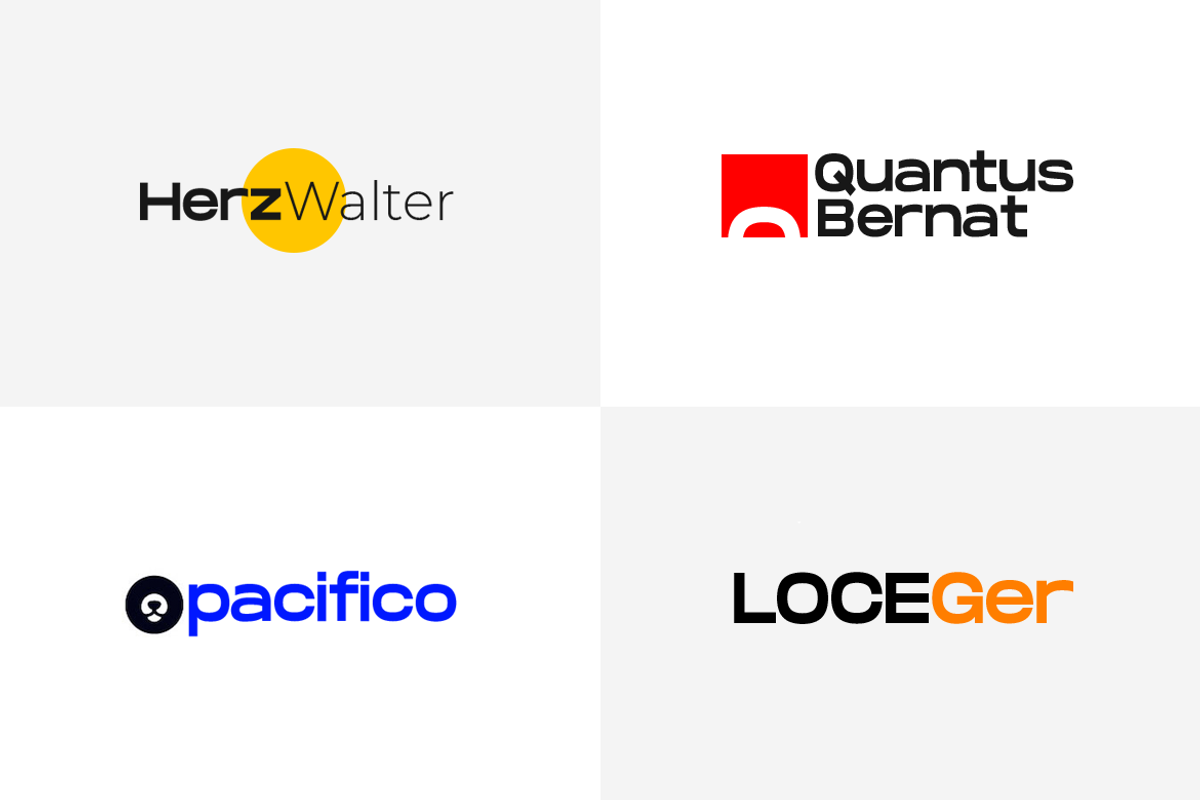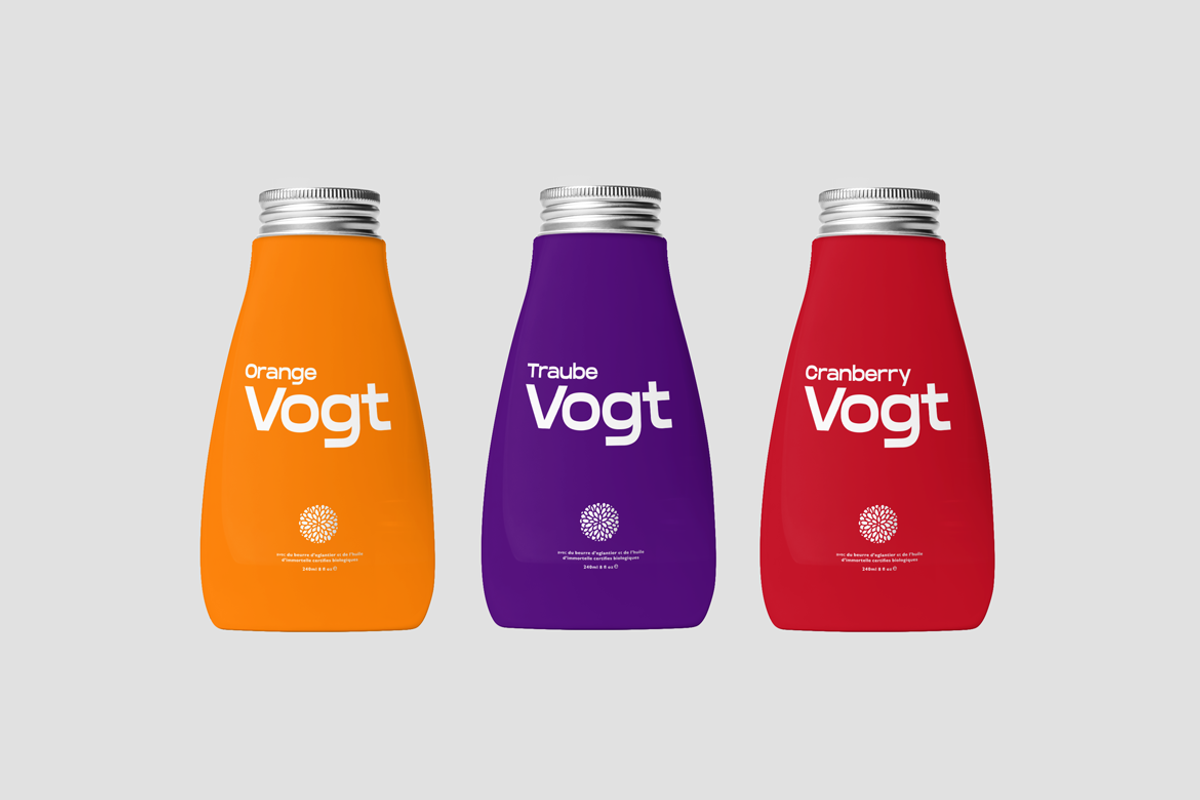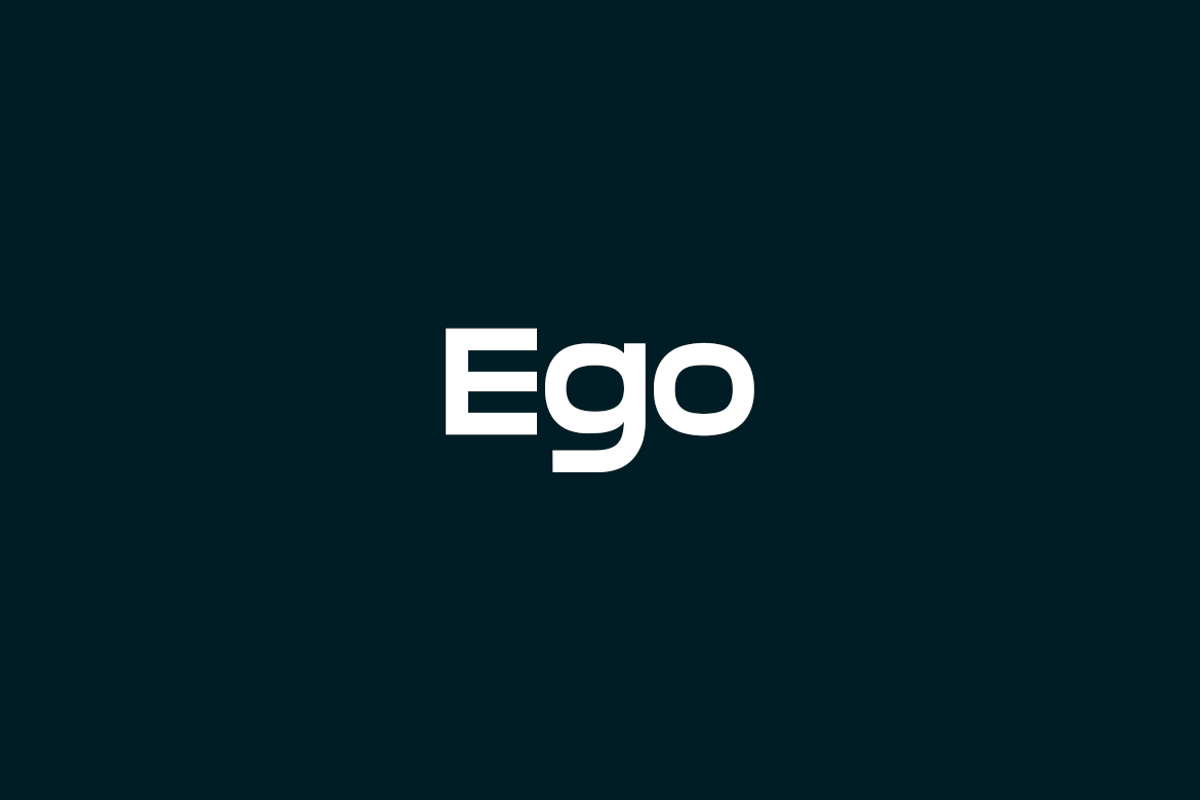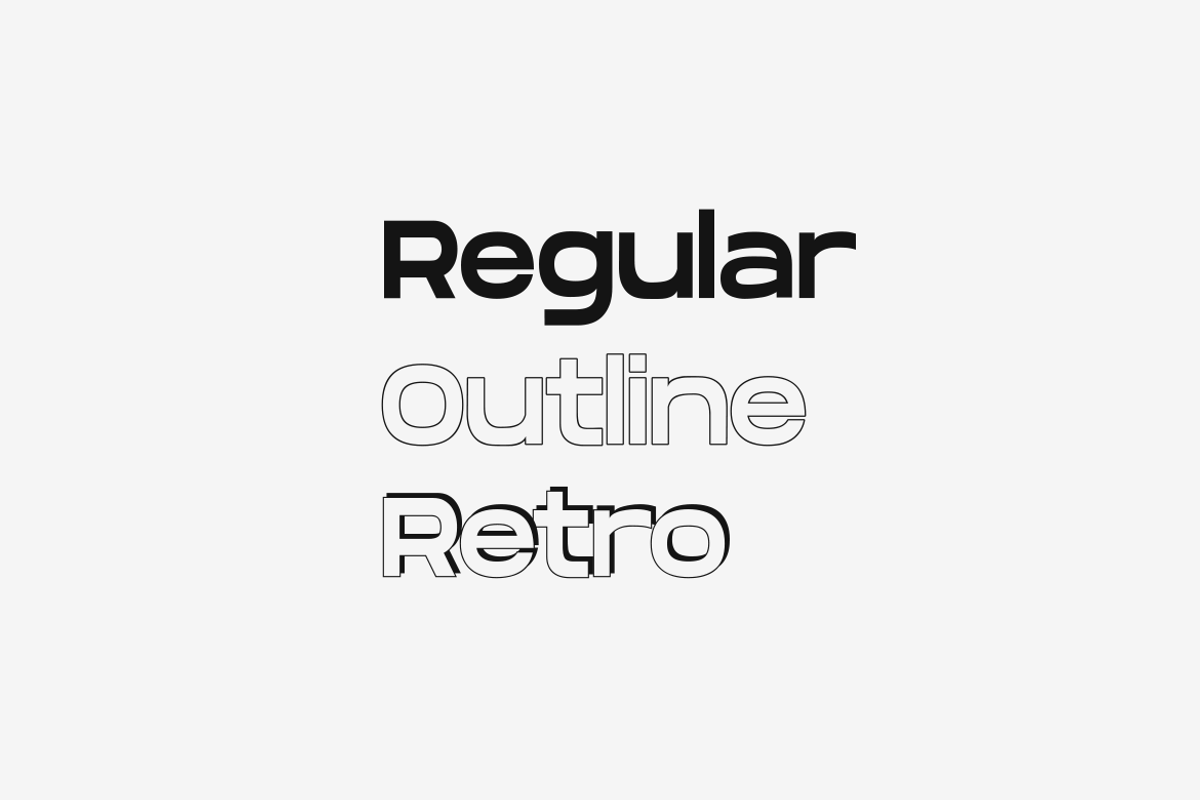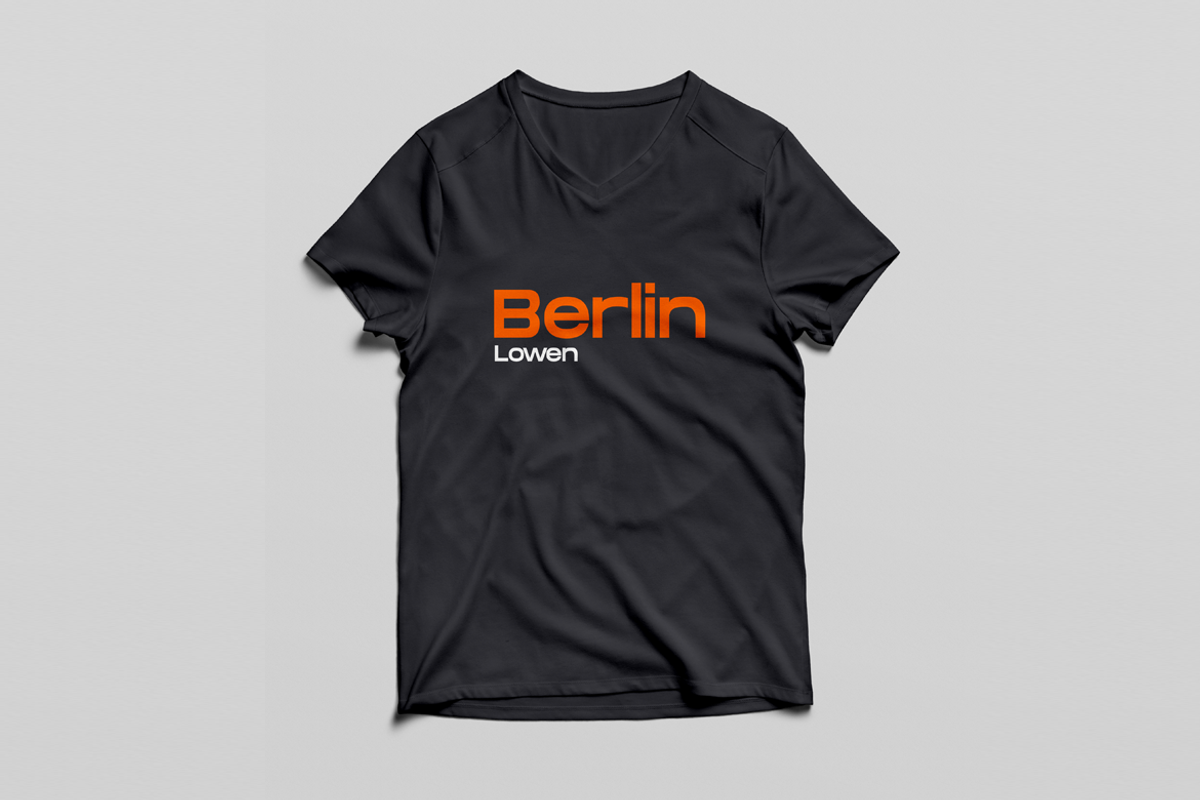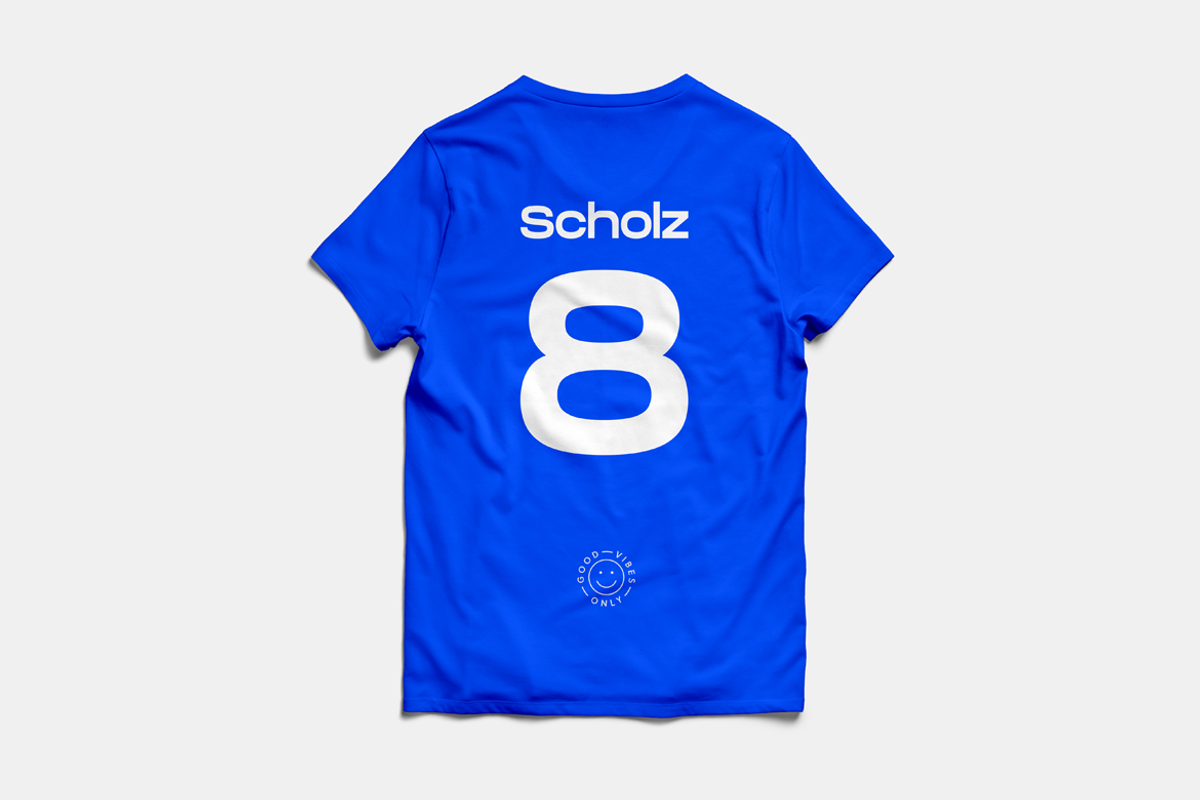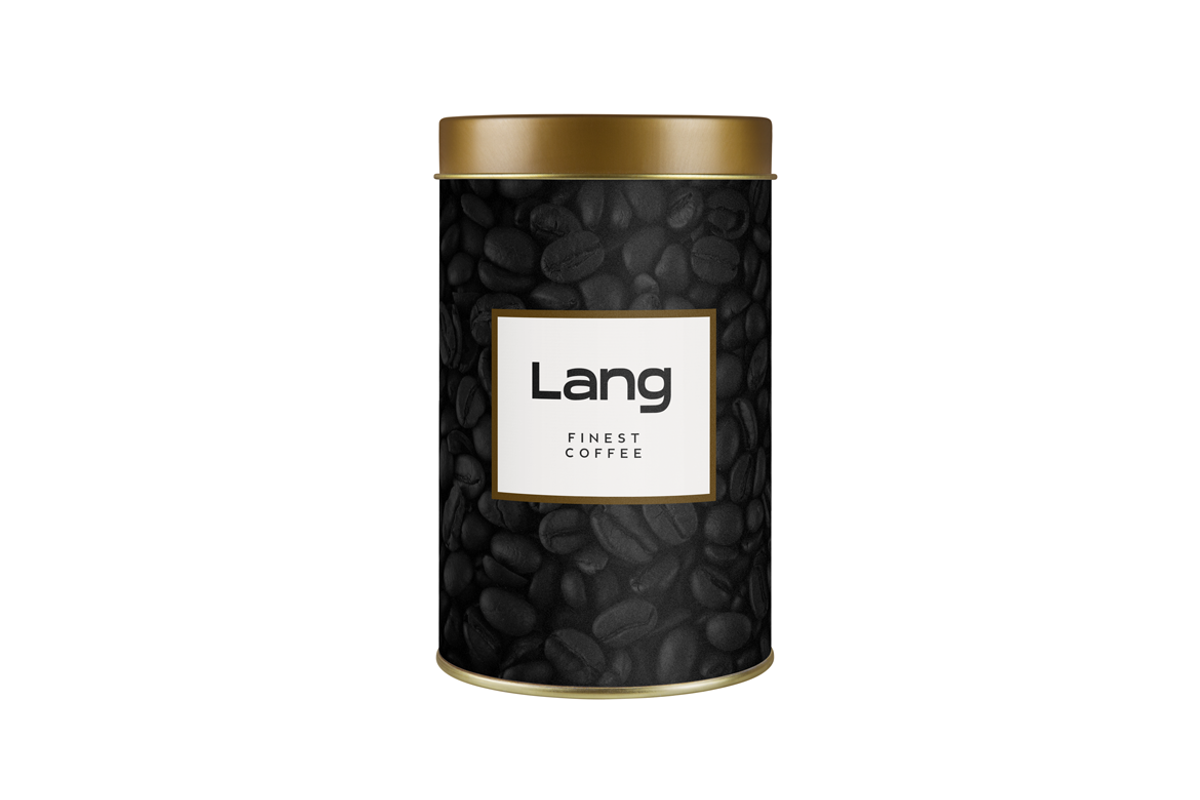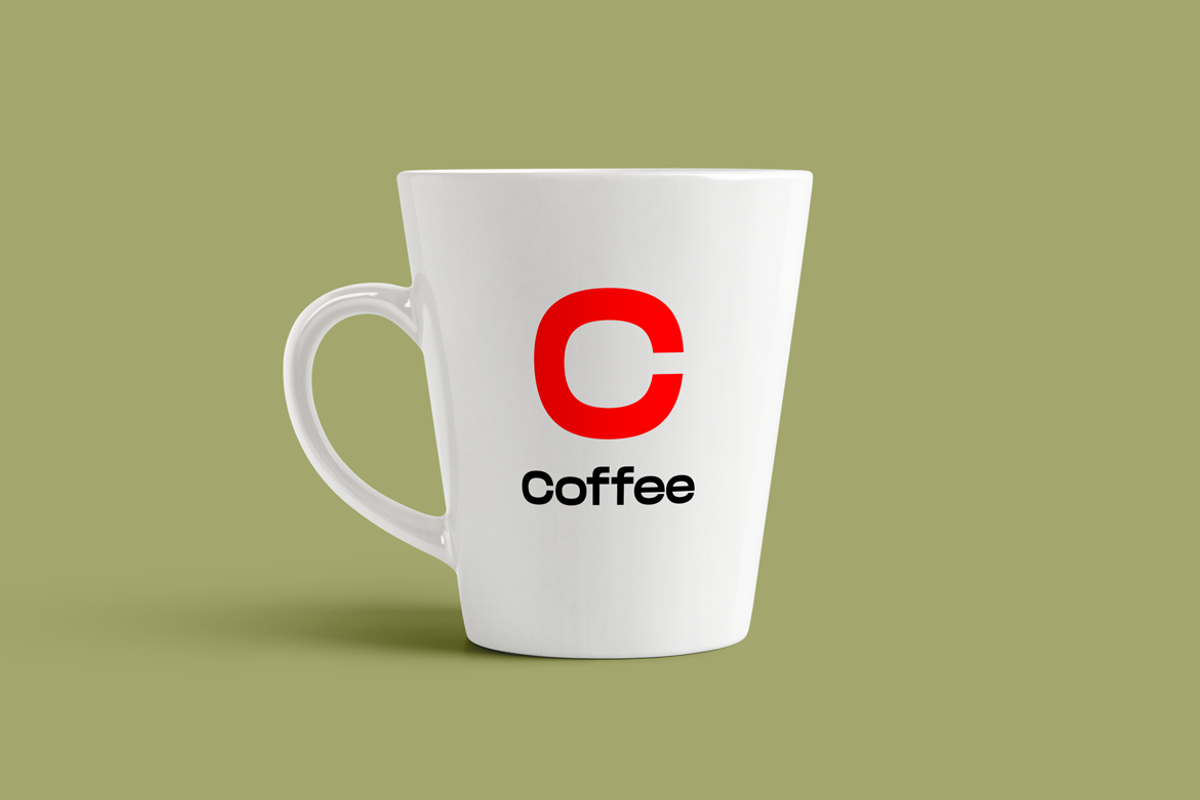
EGO - Unique Display Typeface
EGO is a unique typeface for branding, logotypes, headlines, big text & display usage. This typeface comes with 3 different styles (Normal, Outline, Retro) is best for creating modern logos, promotional content and marketing graphics that can really grab attention from your visitors. Please see the examples shown above to get an idea about the capability of this typeface.
EGO now comes with Extended Latin character sets including Western European, Central European, and South-Eastern European character sets (total of 241 glyphs) available with Regular & Italic variants. The typeface includes single weight + 4 styles (Regular, Italic, Outline, Retro). The pack contains OTF, TTF and Web Fonts (all EOT, SVG, TTF, WOFF, WOFF2 everything is included).
- The typeface includes single weight + 4 styles (Regular, Italic, Outline, Retro).